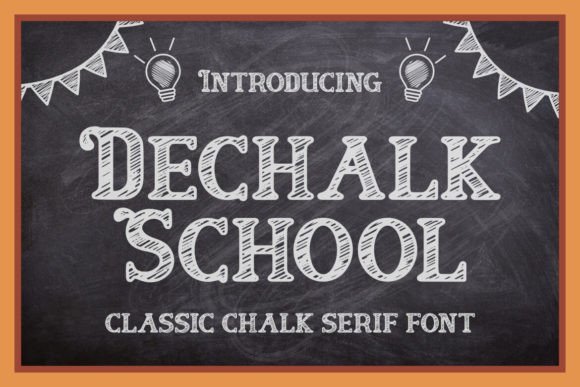
Dechalk School is an incredibly unique and cool serif font.
Masterfully designed to become a true favorite, this font has the potential to bring each of your creative ideas to the highest level .
Dechalk School Font offers exceptional quality and versatility, making it a valuable addition to your design toolkit. Whether you’re creating for personal projects or commercial use, Dechalk School Font delivers professional results.